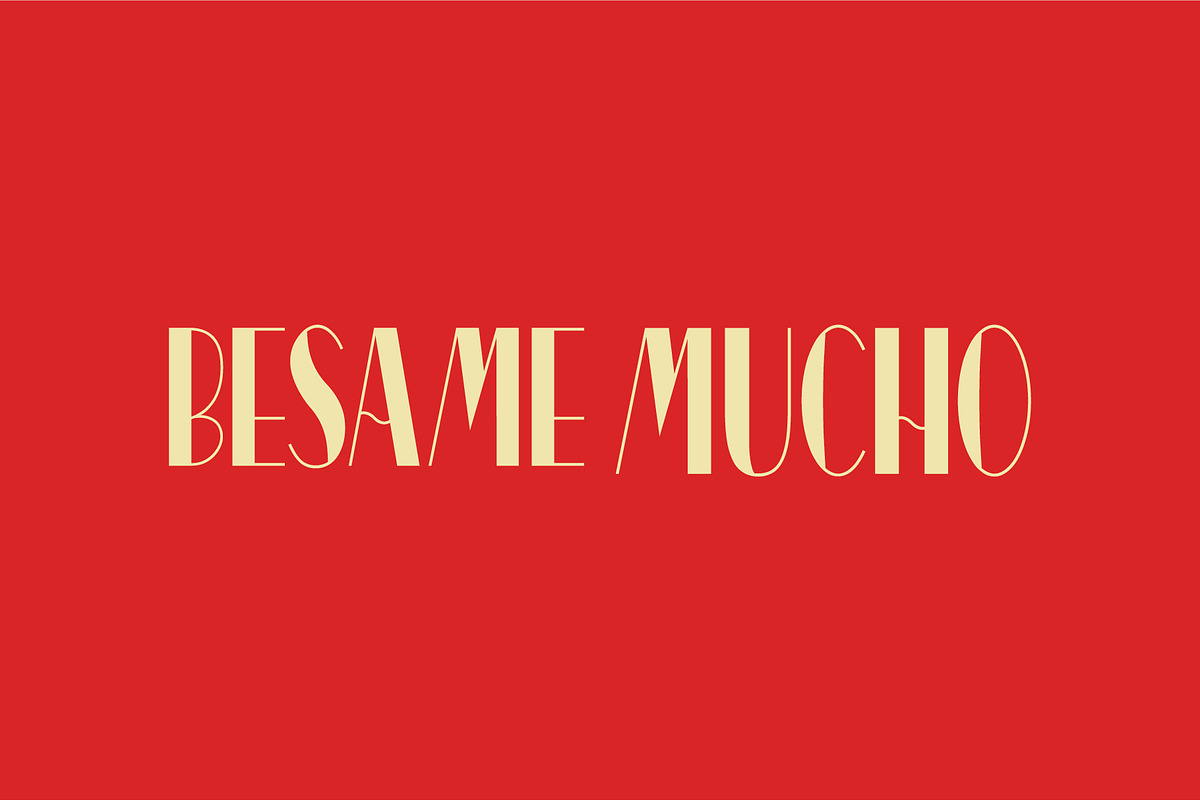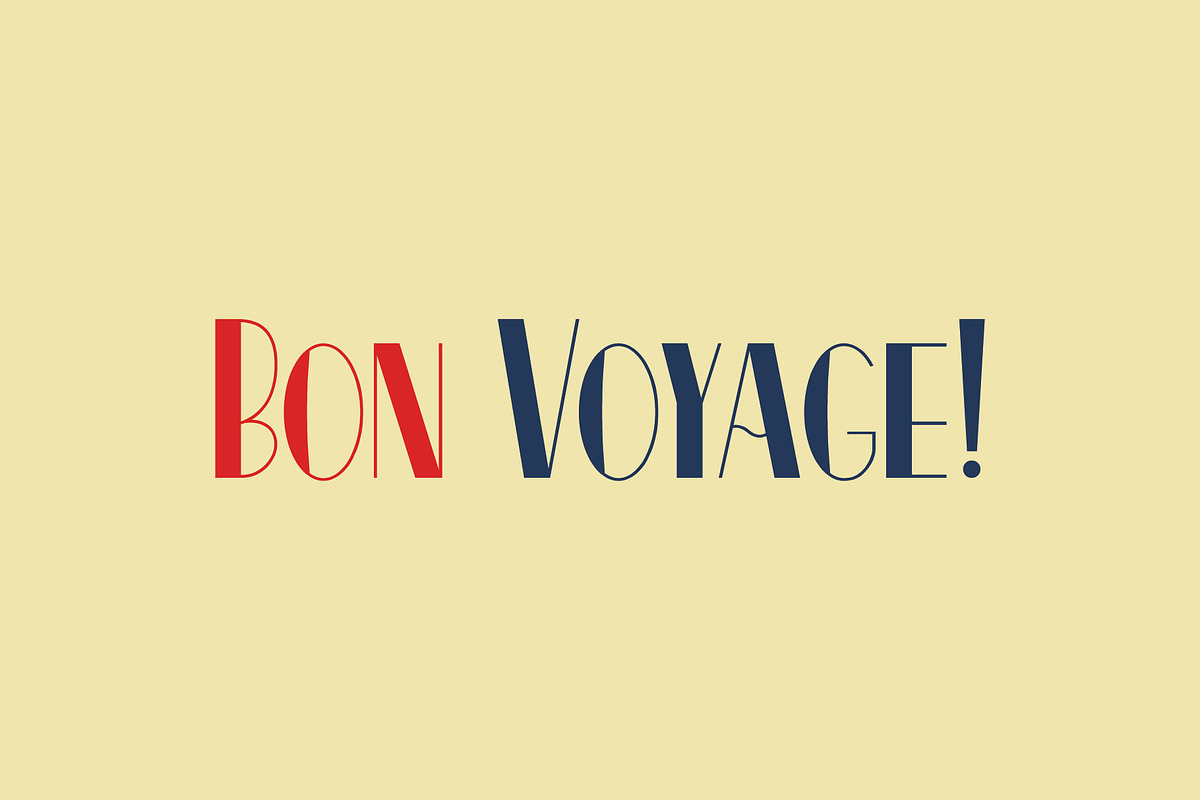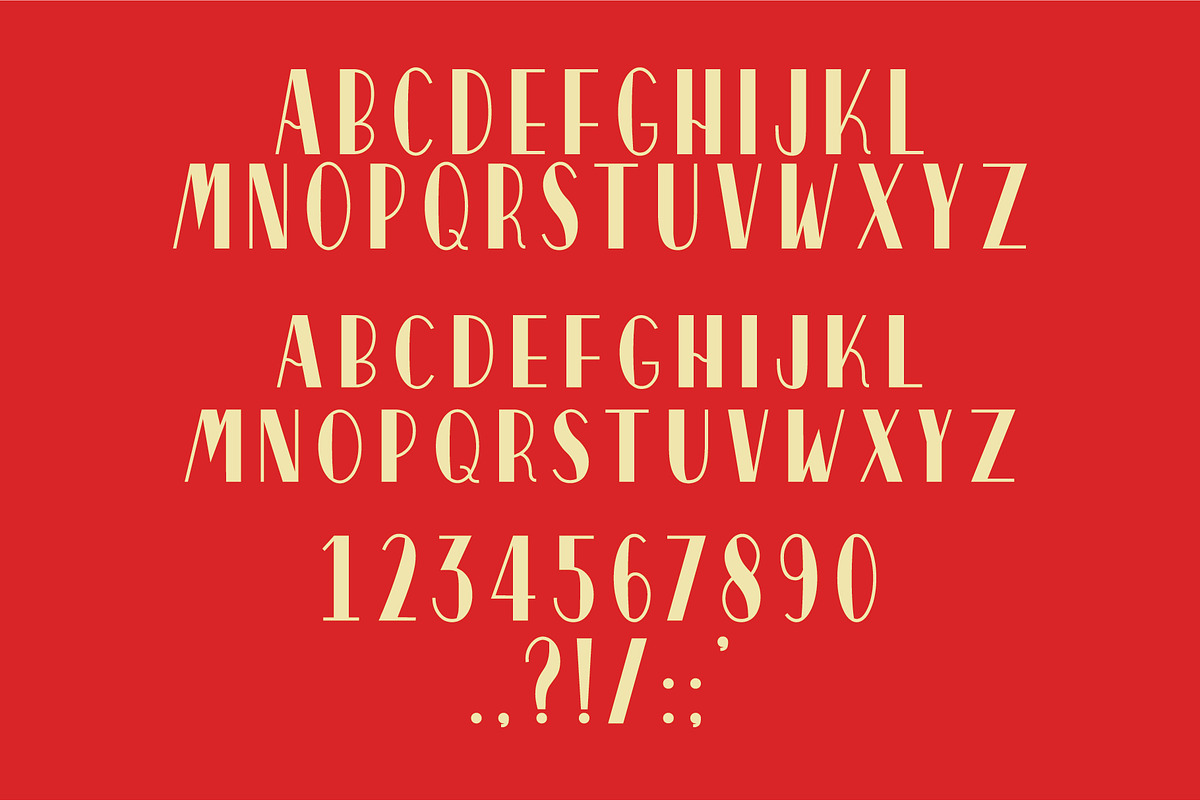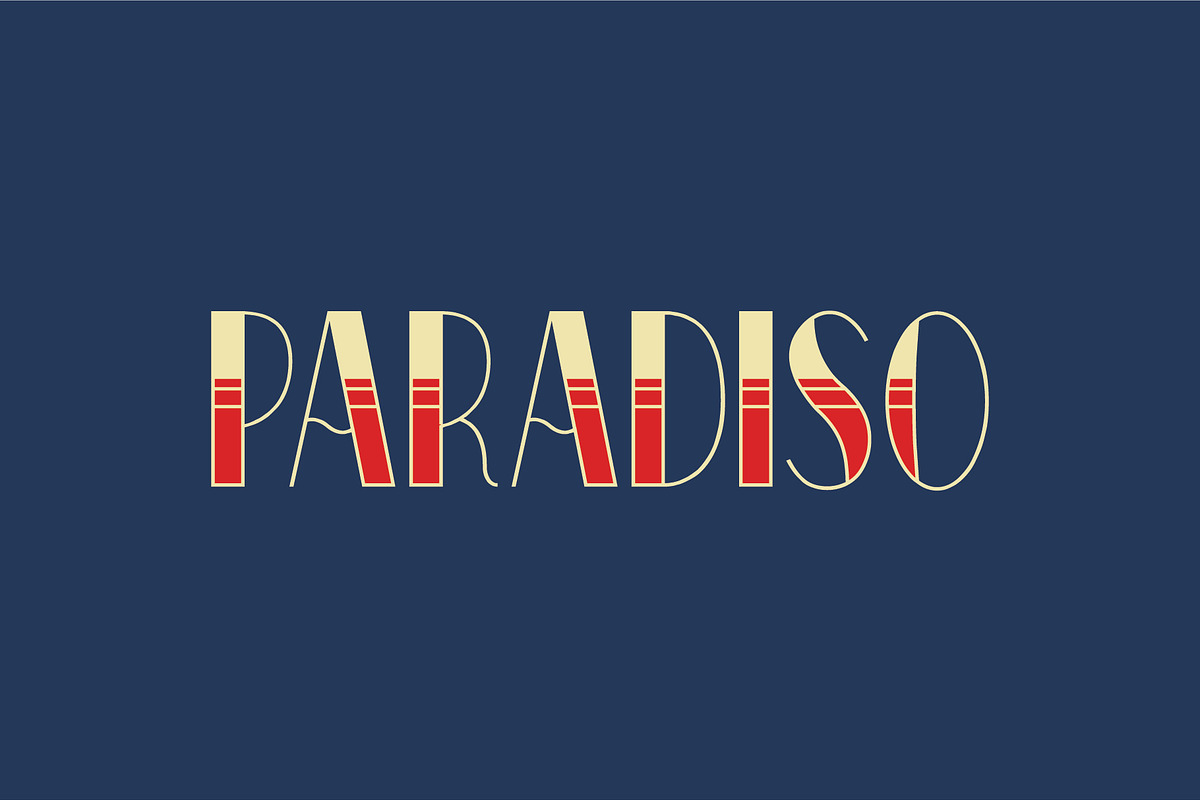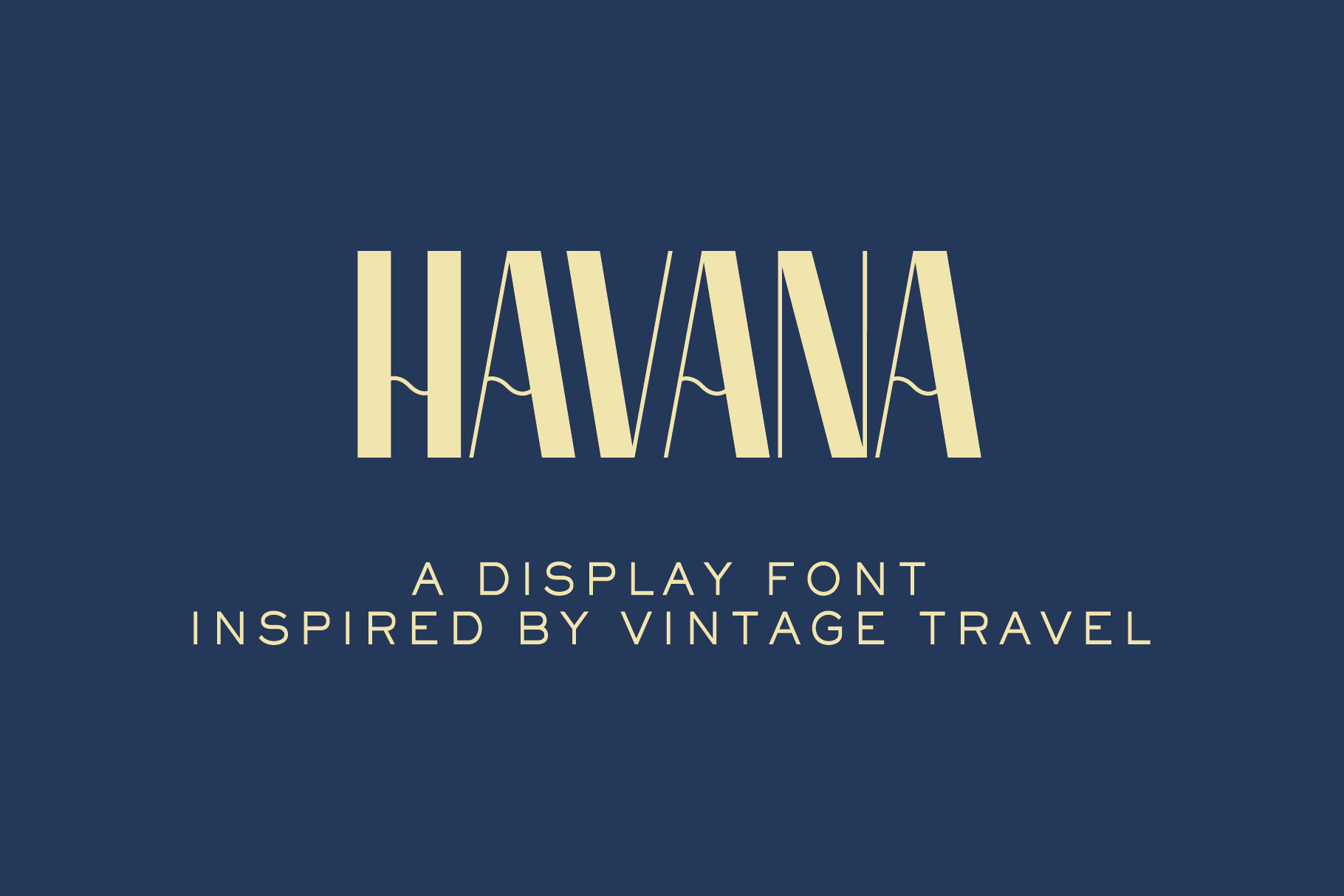
Havana Display Font
Just close your eyes and picture it: A yellow vintage Cadillac cruises down the street at a slow Sunday pace. That faint, sweet smell of cigar wafts on by dragging your attention to the sun setting over the beach. It’s 1950, in pre-revolutionary Havana, Cuba. The romantic, tropical getaway that attracts lovers and adventurers alike. Rhythmic drumming from bongos at a nearby salsa bar reach you. There’s a sultry heat here that makes mojitos on the beach a daily necessity.
This is Havana; an original san-serif display typeface that’s inspired by vintage travel. It was born out a collaborative effort between Kathie Baptista (https://www.kathiebaptista.com) and Ronald Ferree (http://www.rfco.co). Havana exhibits a smooth combination of both hairline and thick strokes; creating a bold, retro style. Now, let your mind drift away to the sound of the palm trees swaying in the breeze, and the crashing of the seas.